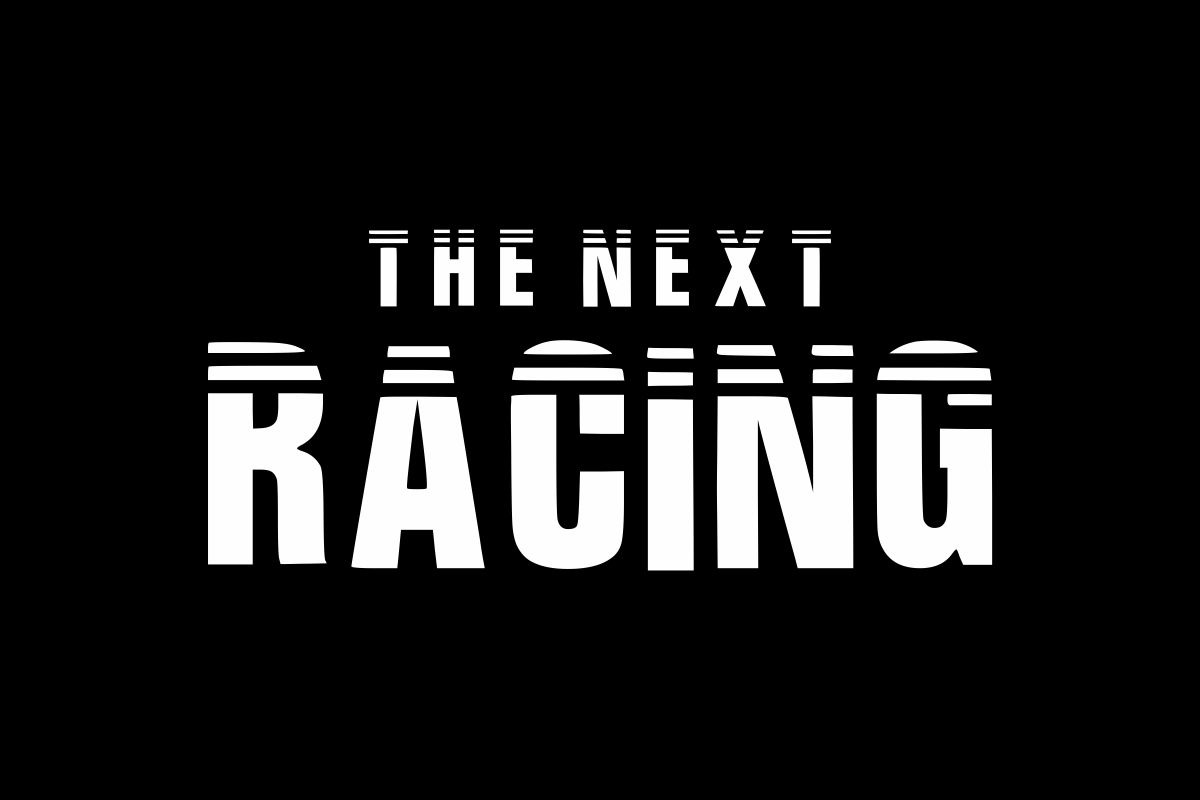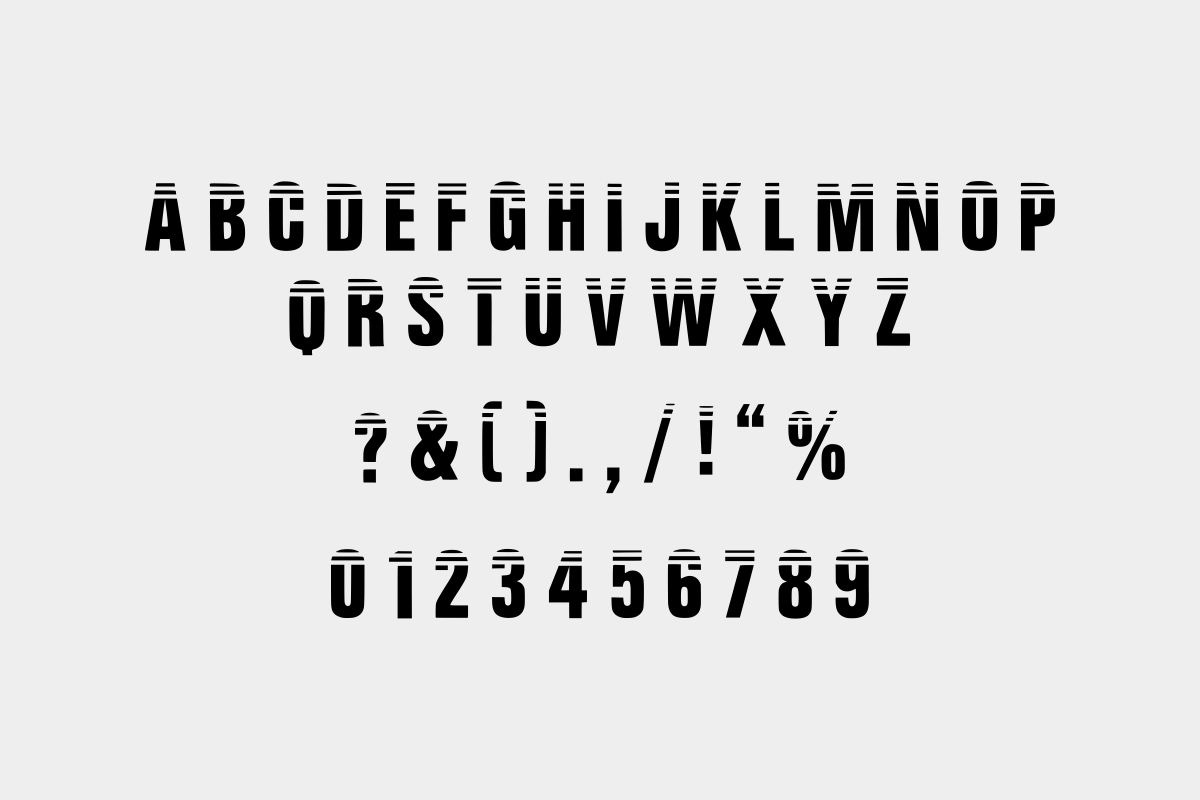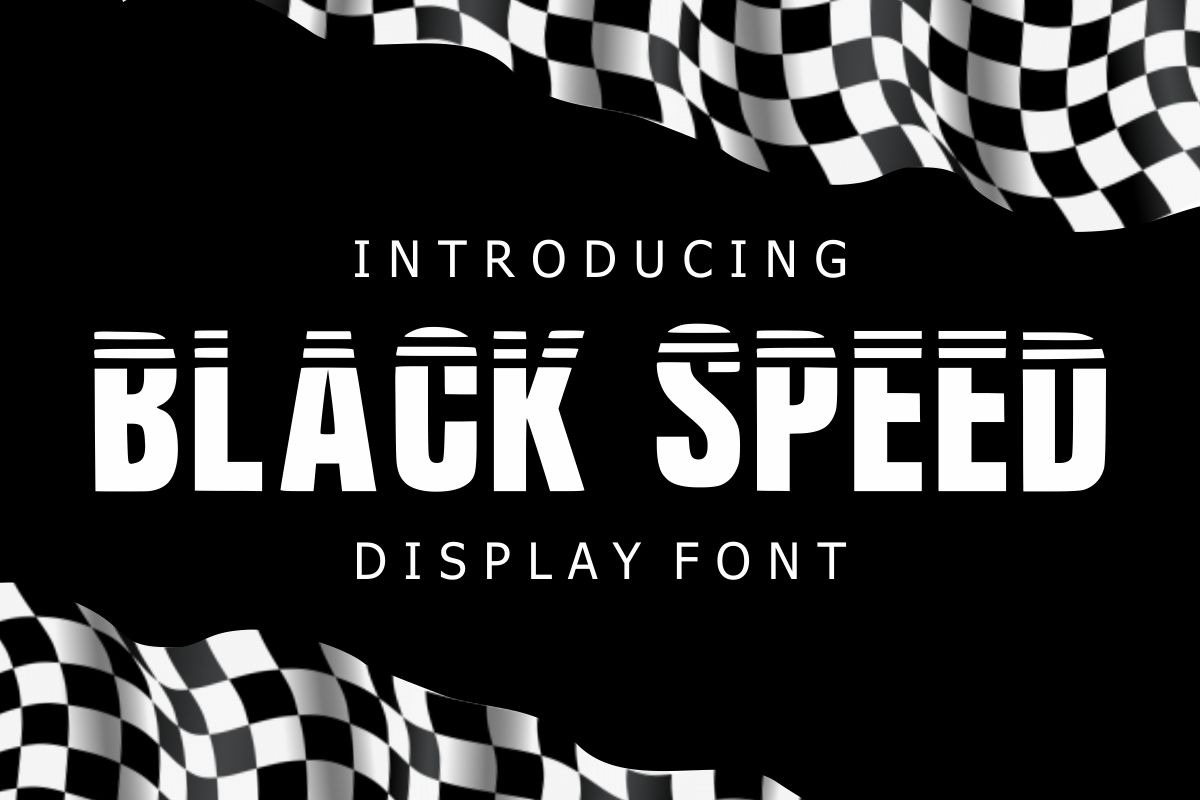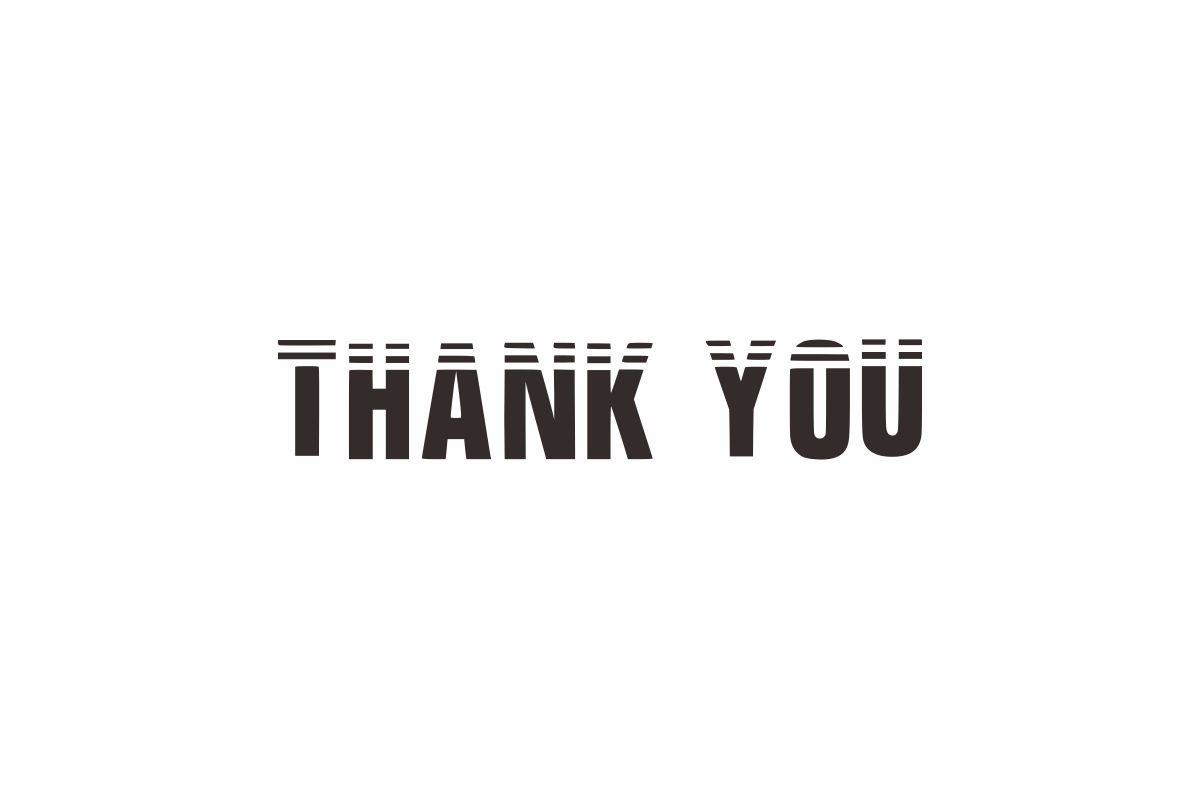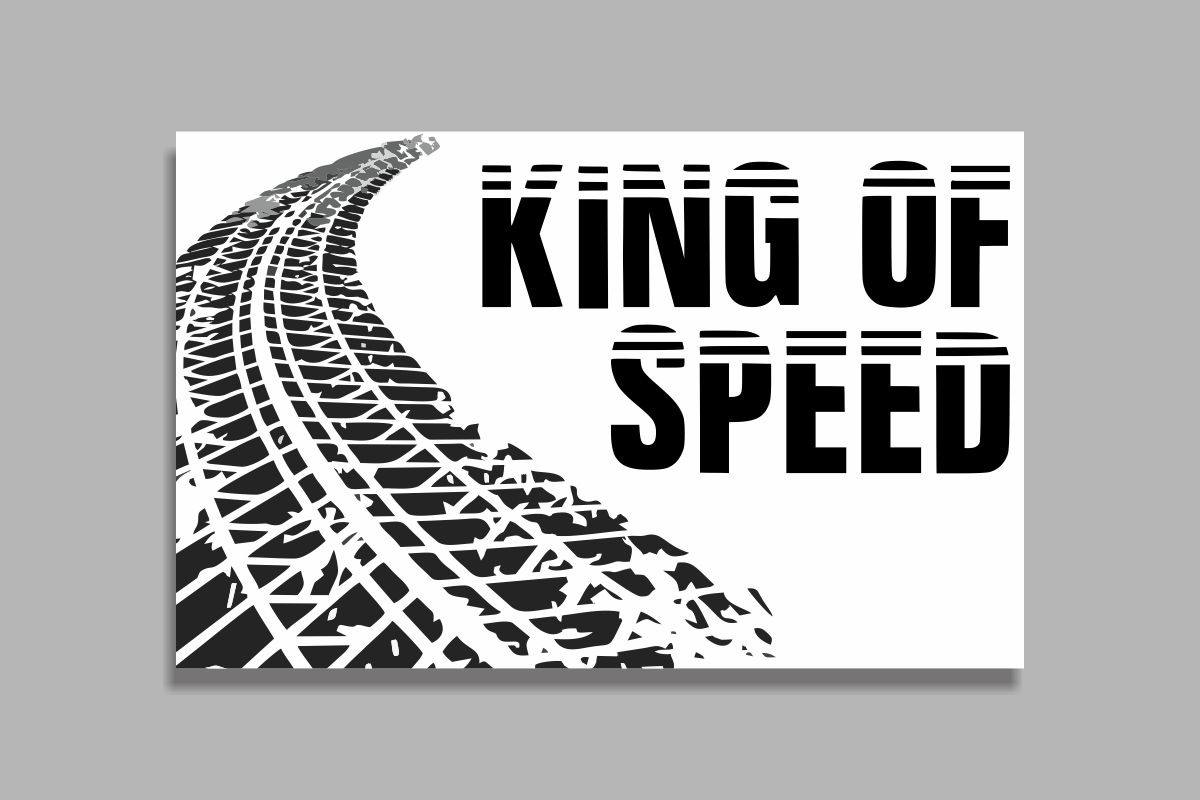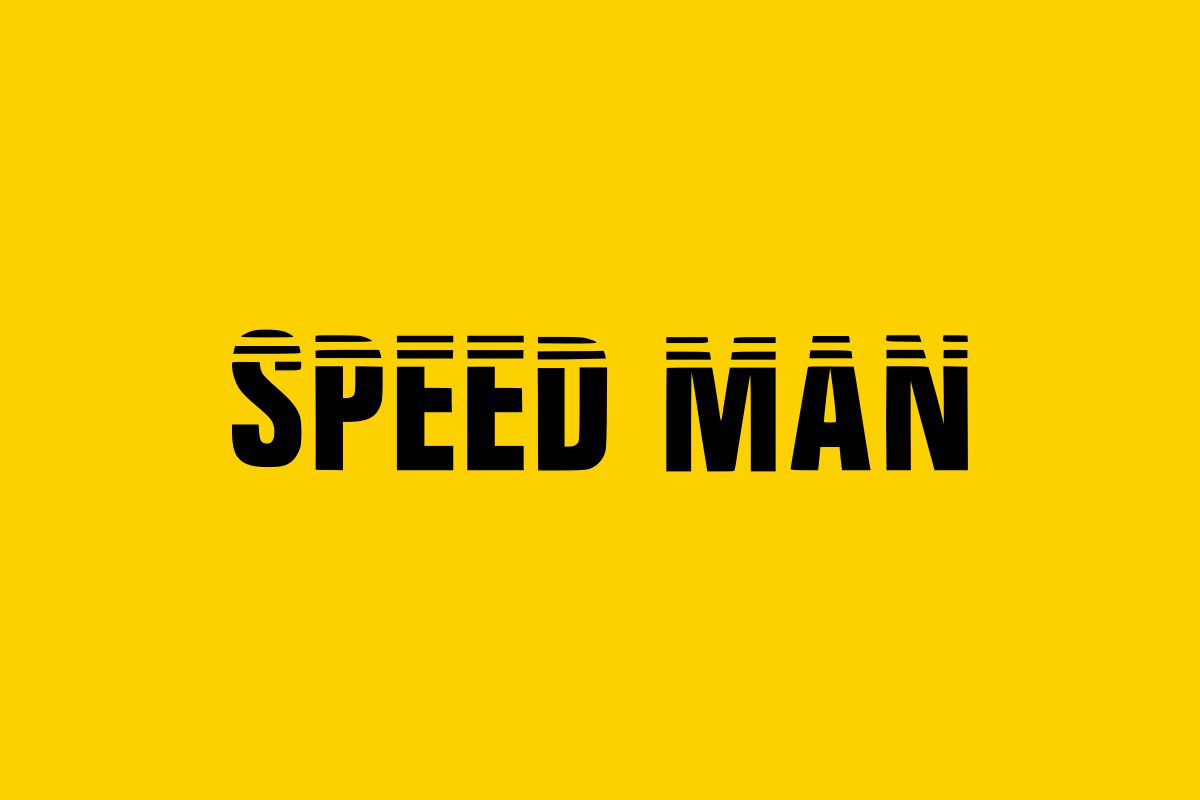
Black Speed - Racing Font
Black Speed is a cool and bold display font. It features a dynamic effect and a unique charm. It is perfect for headlines, whether for sporting events, automotive posters, logo or monograms designs. This font has the potential to become your favorite go-to font for each of your automotive projects.